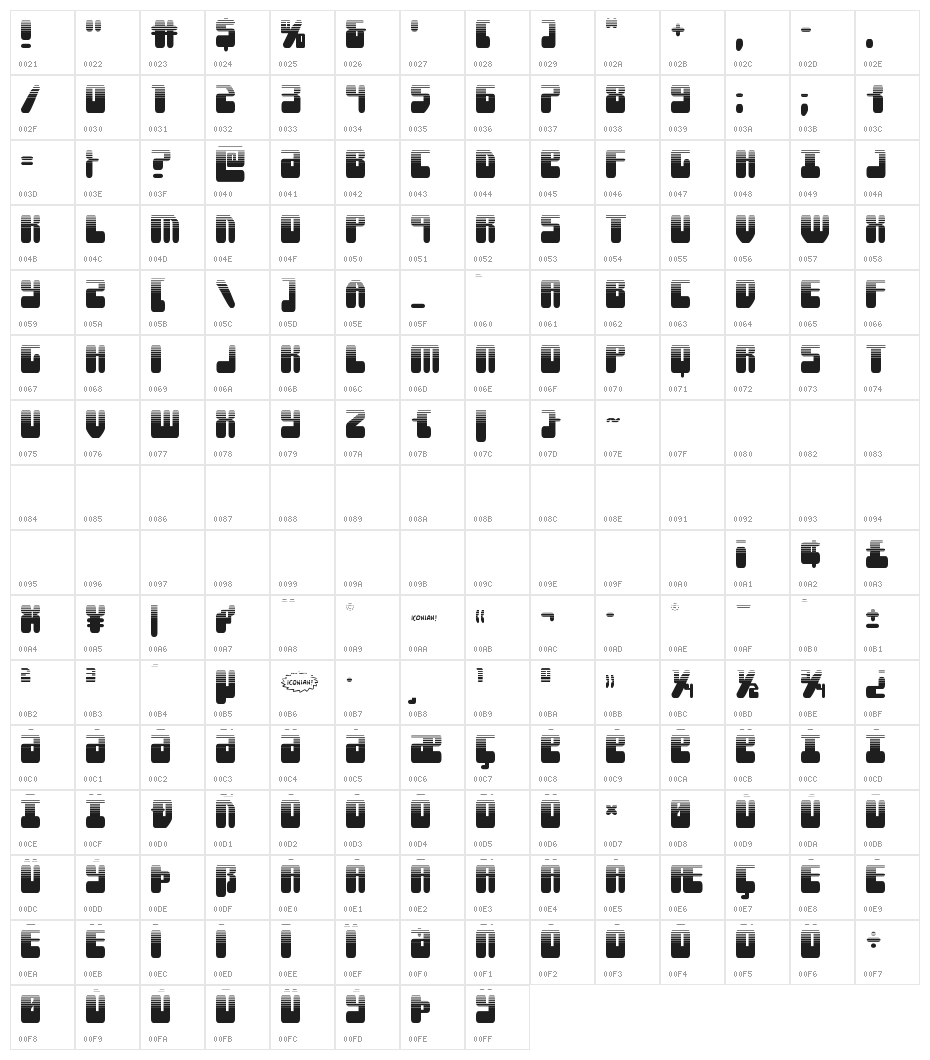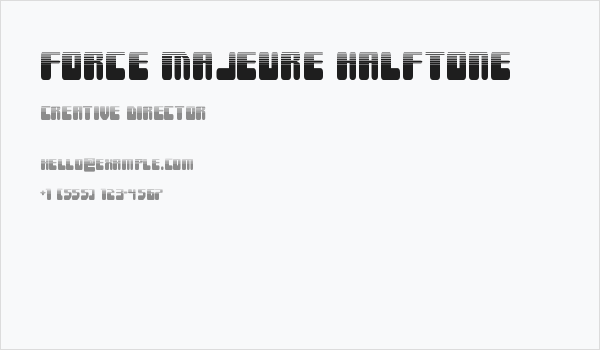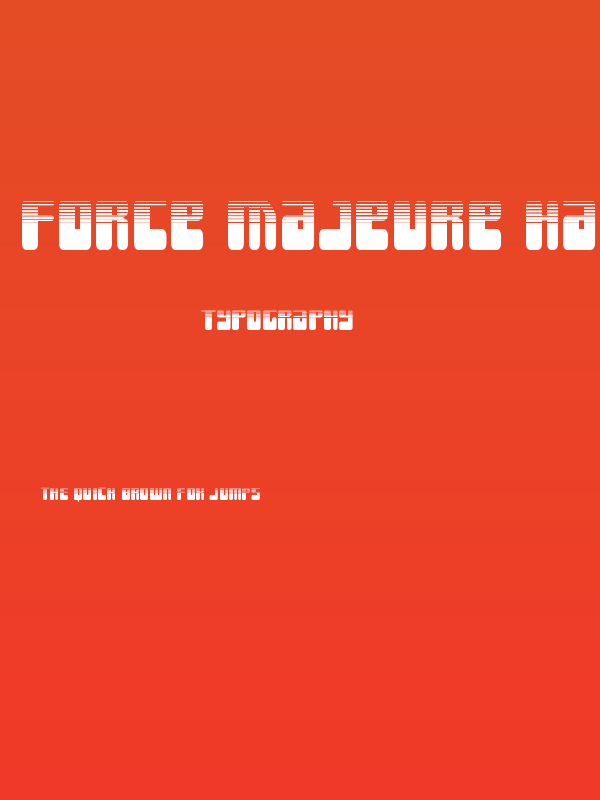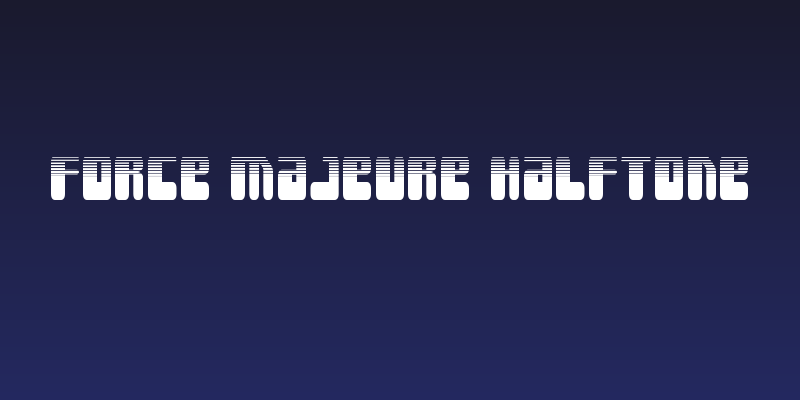
Force Majeure Halftone Font
Force Majeure Halftone Description
This font features a bold, geometric design with a distinct halftone effect. The characters are constructed with thick, block-like forms that are partially filled with horizontal lines, creating a unique visual texture. The uppercase and lowercase letters maintain a consistent style, emphasizing a modern and futuristic aesthetic. The numerals and special characters follow the same design principles, ensuring uniformity across all glyphs. The font's striking appearance makes it ideal for attention-grabbing headlines and display purposes.
| Proposed Projects | Ideal for posters, album covers, branding, and any project requiring a bold, modern aesthetic. |